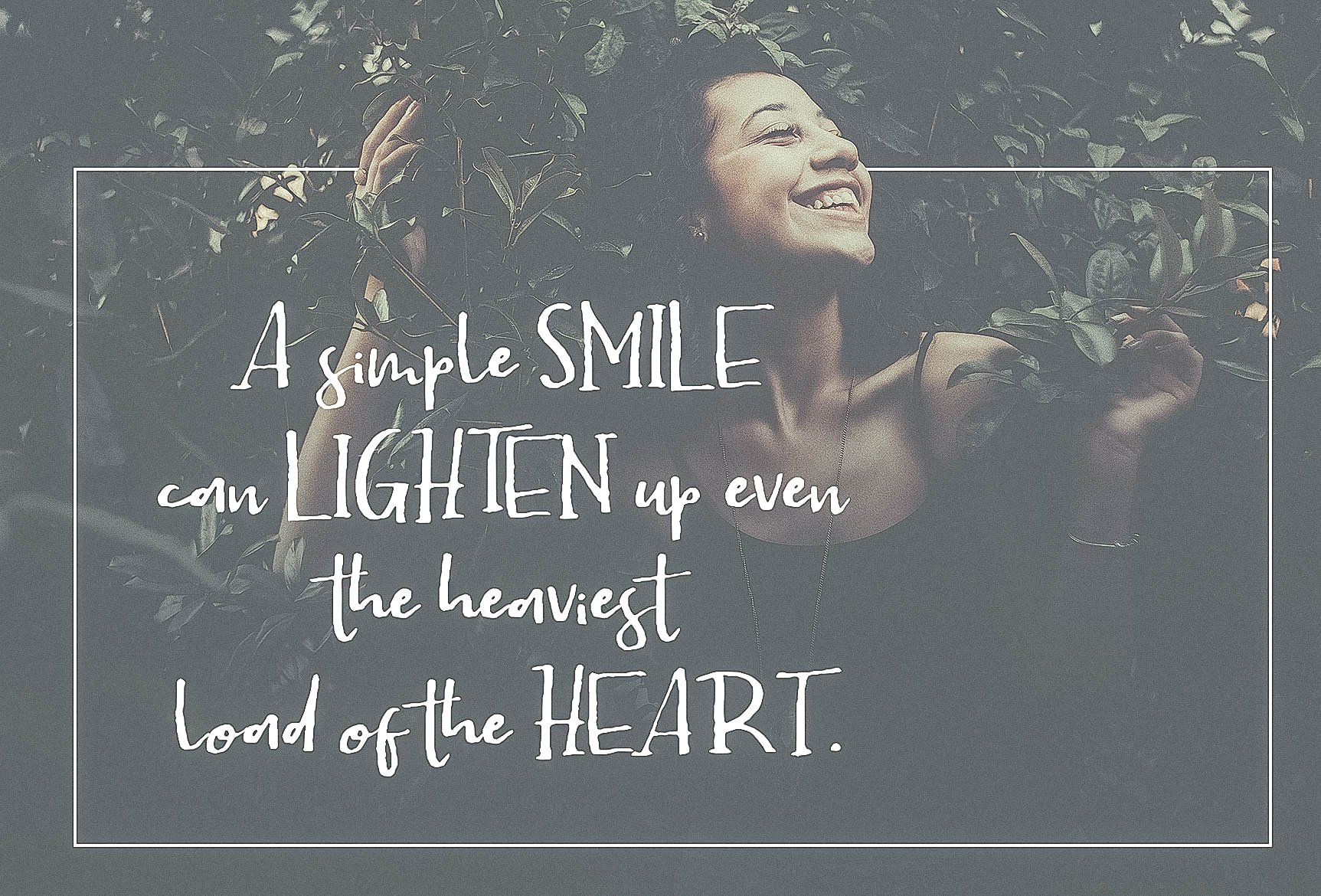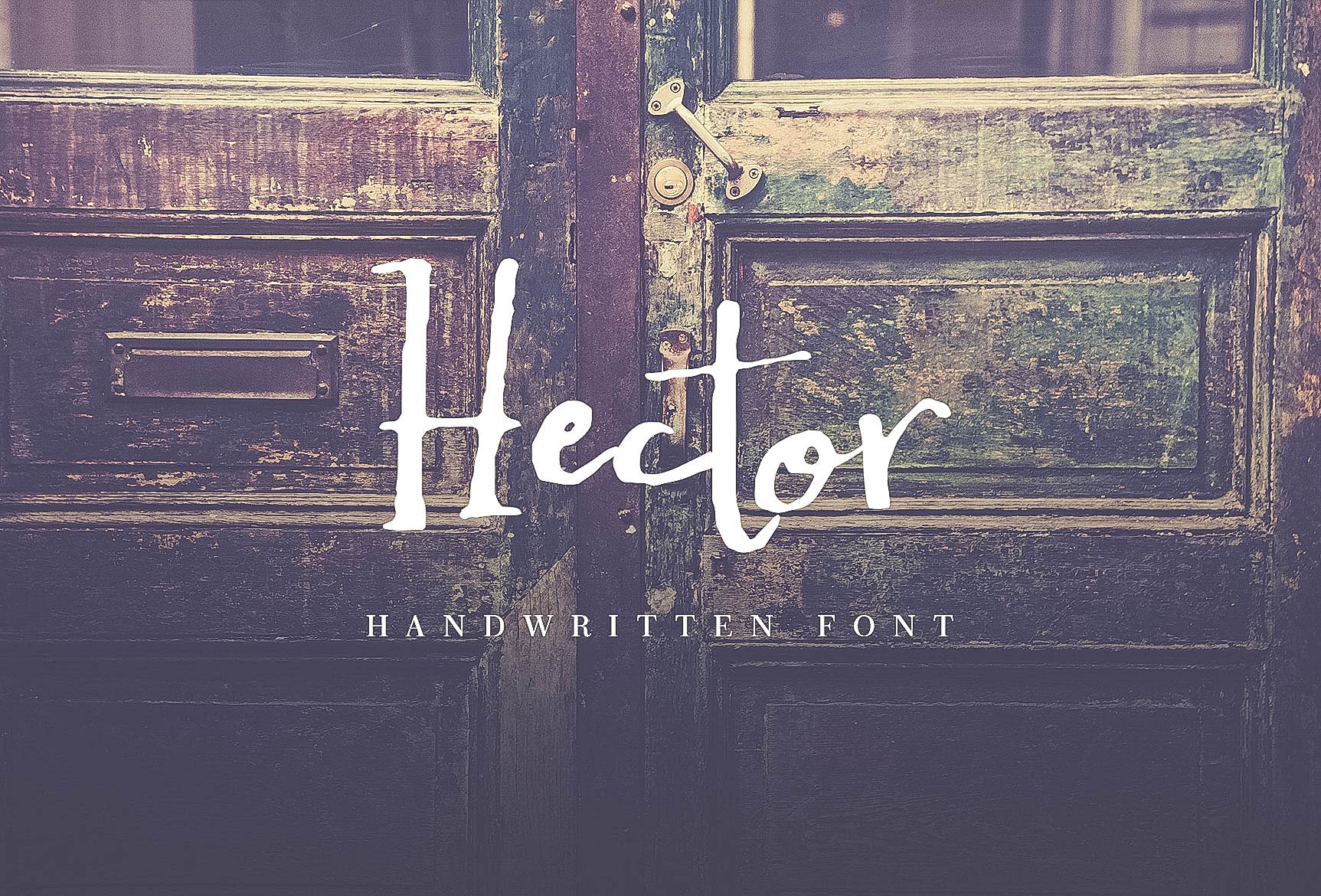
Hector
Hector Script Font
Introducing Hector handwritten font! Hector is a handwritten script font. It allows you to create stunning and easy hand-lettering in an instant. Ideal for the logo, quotes, wedding, product label/packaging, fashion, letter, advertising, invitation, poster, merchandise, greeting cards, etc